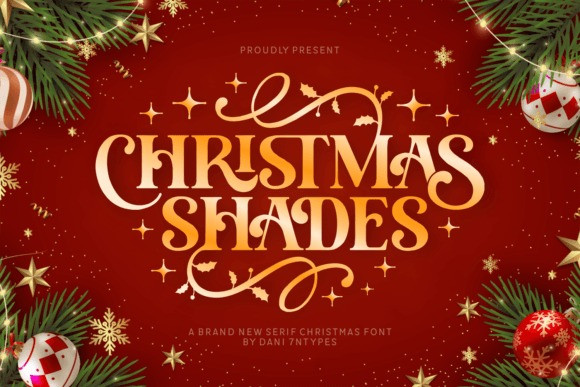
Christmas Shades Font
Designer: Dani (7NTypes)
Christmas Shades Font is a stylish serif font with a classy and elegant feel. It has graceful, curved letters that make it perfect for festive and sophisticated holiday designs.